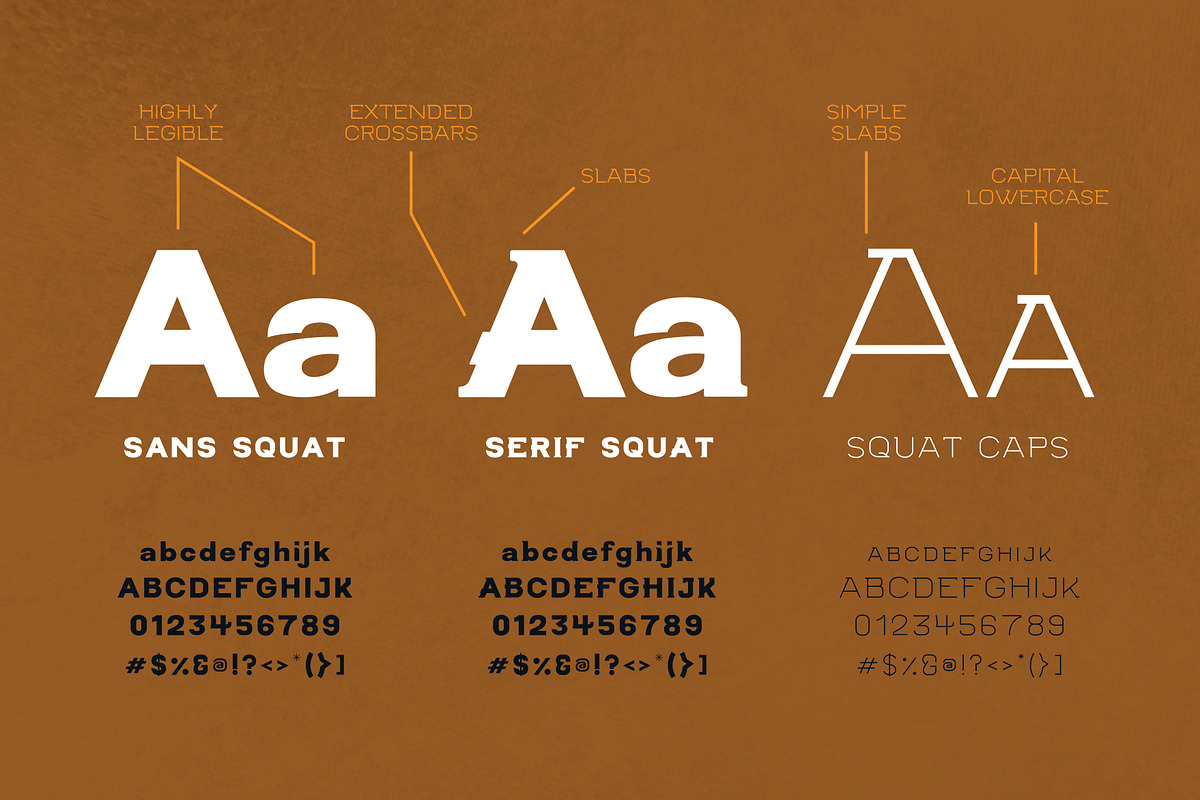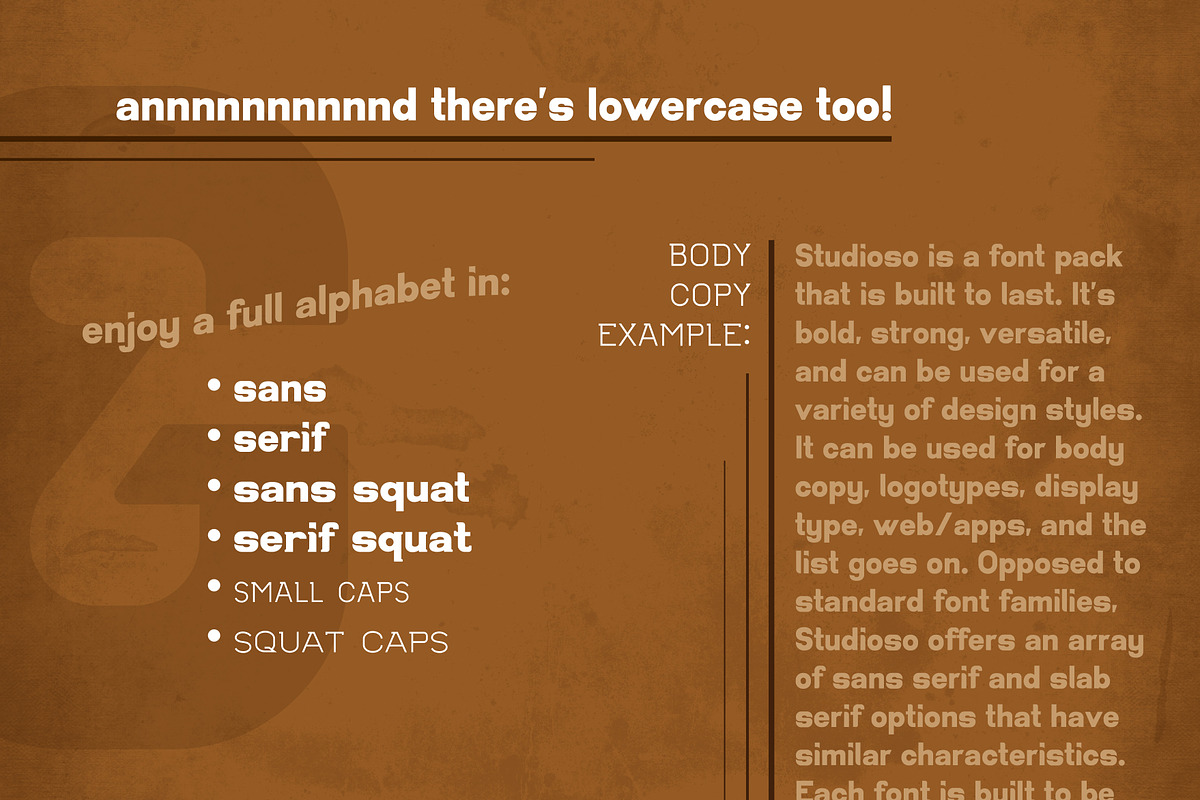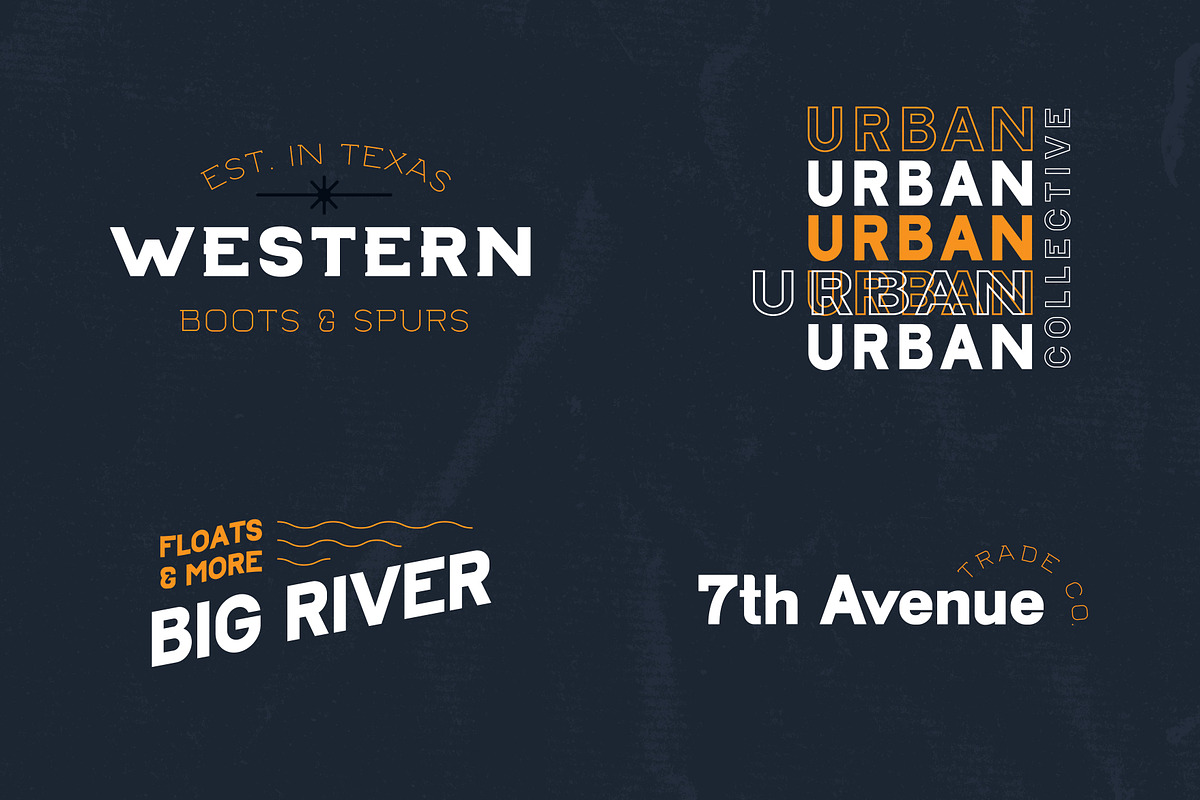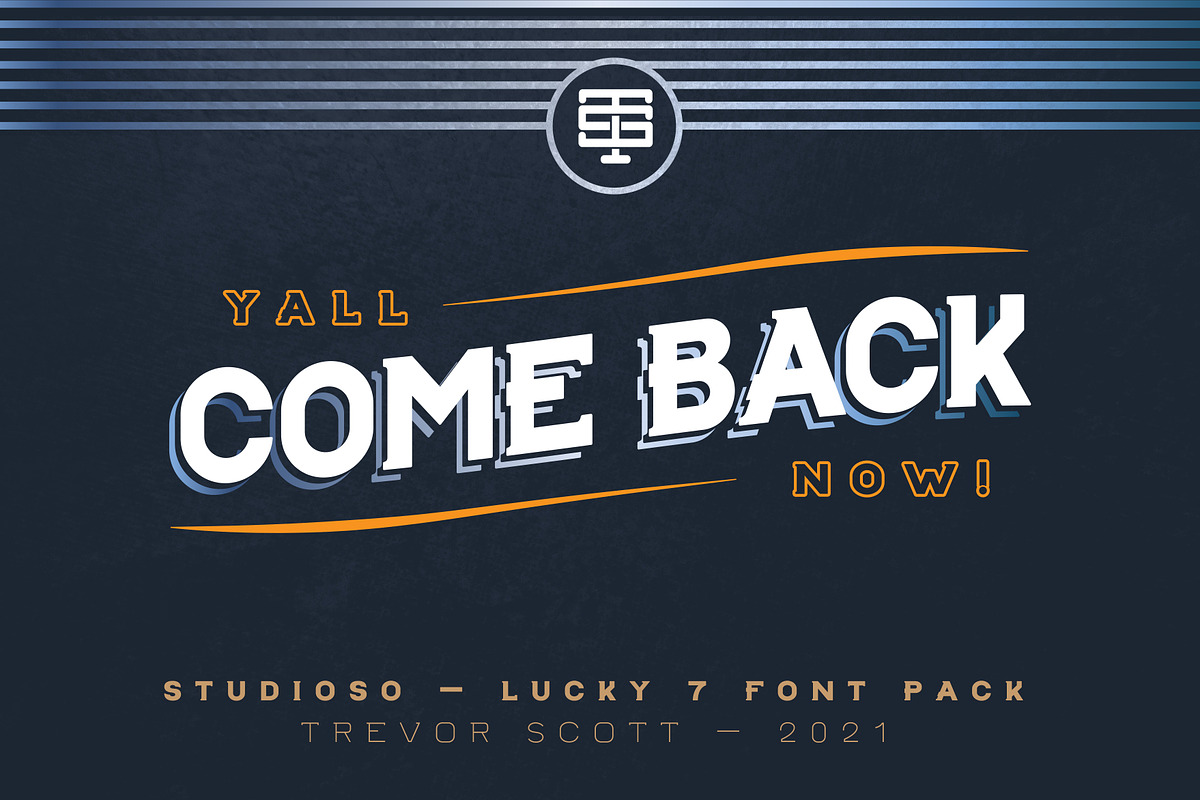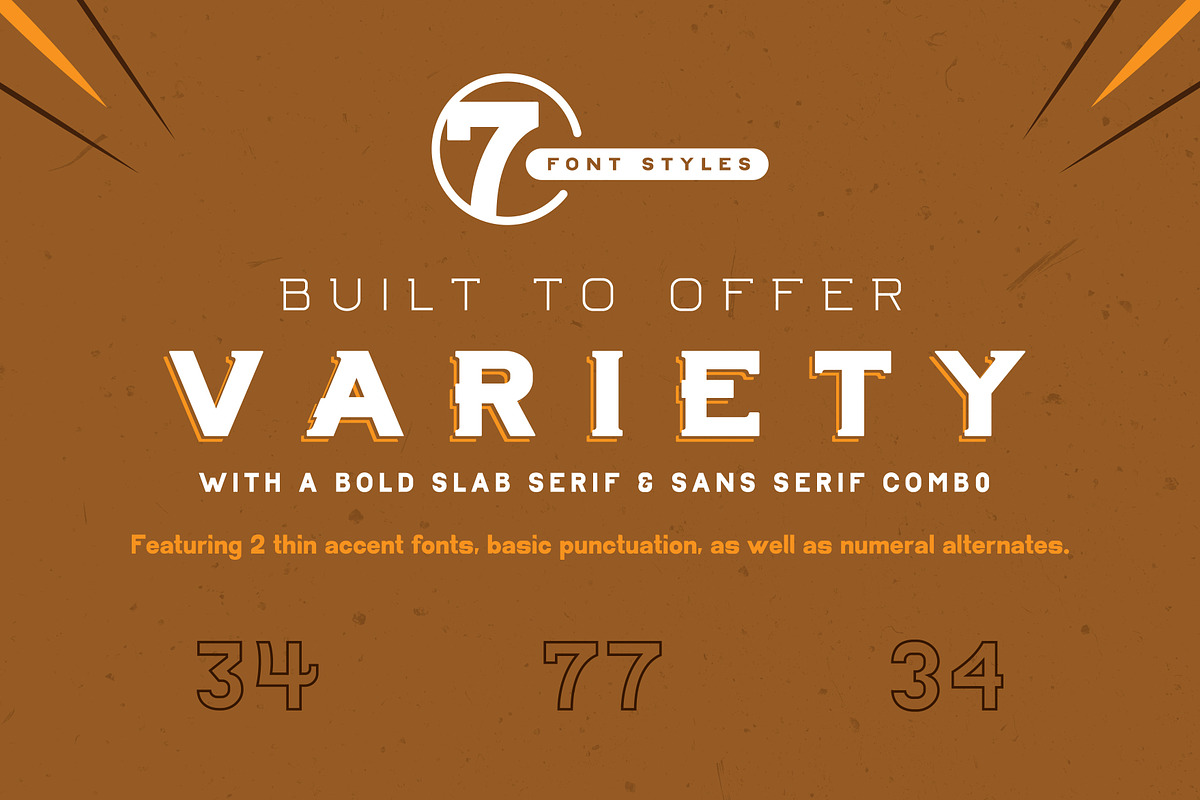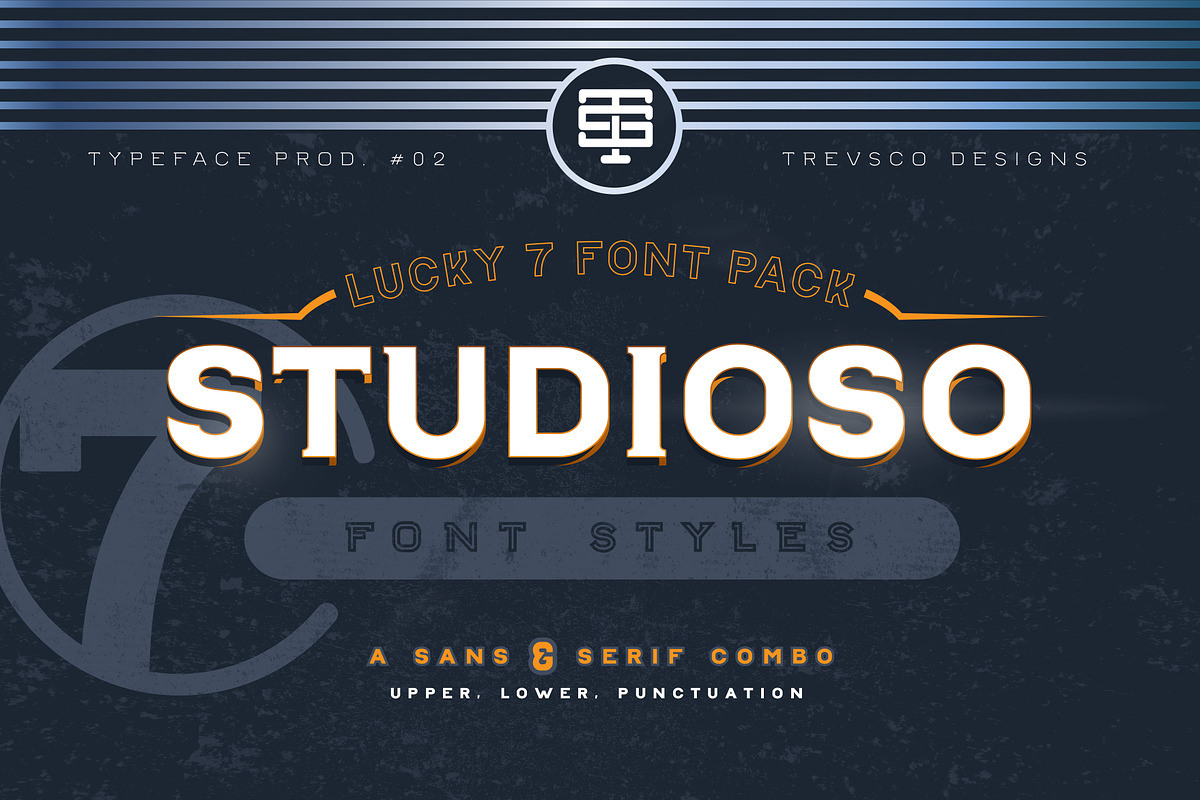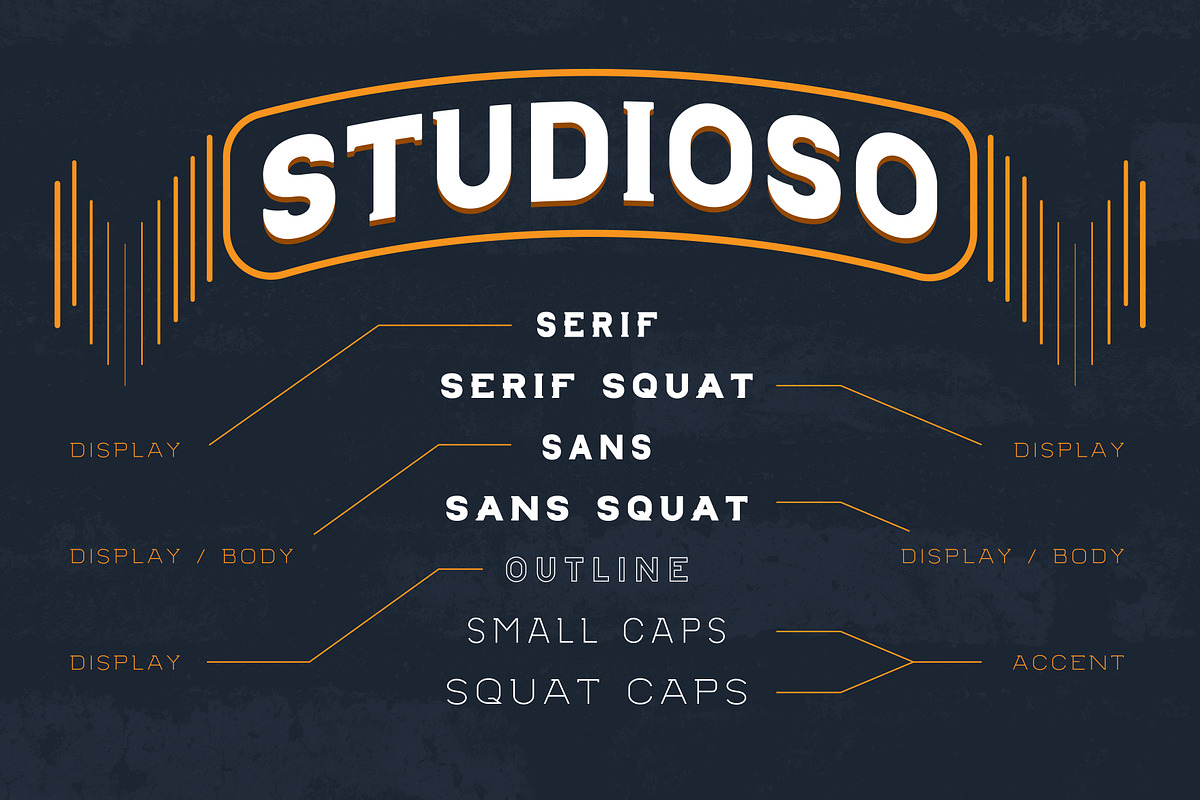
Studioso – Slab & Sans Serif Combo
Welcome to Studioso – the Lucky 7 Font pack! Here you'll find a versatile font family that include both serif and sans serif options with similar characteristics – no more searching to pair the two!
Designed to offer a variety of usage, Studioso includes 7 styles:
- Serif
- Serif Squat
- Sans
- Sans Squat
- Outline
- Small Caps
- Squat Caps
With a variety of styles, you can create in a wide array of design styles. Want something modern and urban? Done. Want something Western or vintage? Done. What about building logo badges? Oh, heck yeah! Studioso allows you to pick and choose from 3 base styles (serif, sans, caps) to assist you in creating something amazing.
The Lucky 7 Font Pack includes:
- Uppercase AND Lowercase alphabetical characters
- Numerals AND alternate number styles
- Basic punctuation